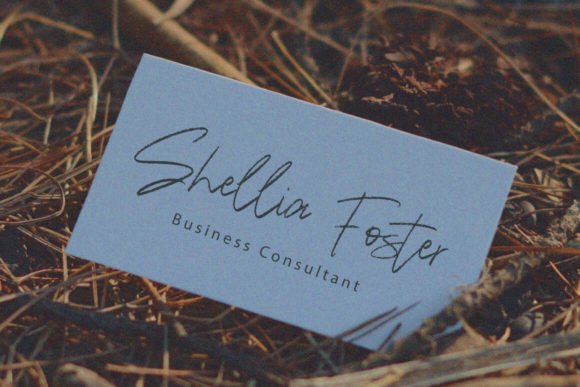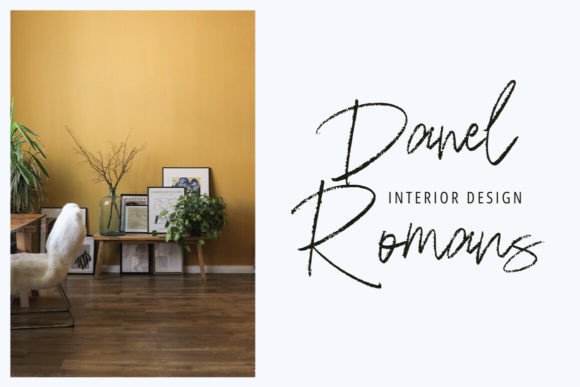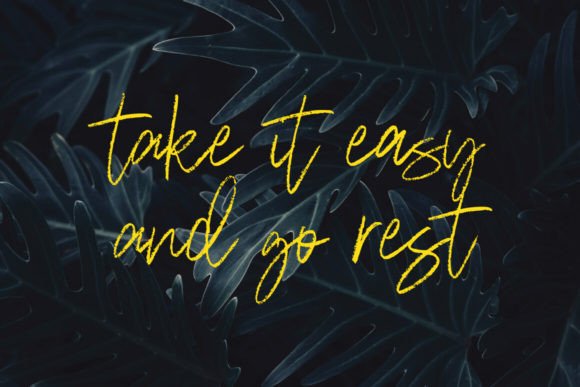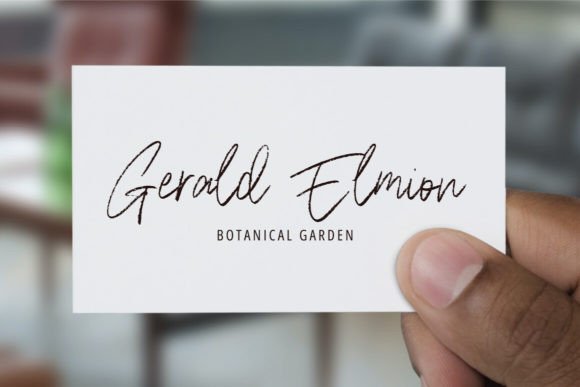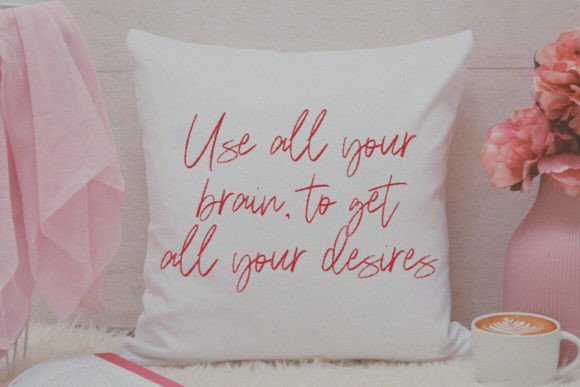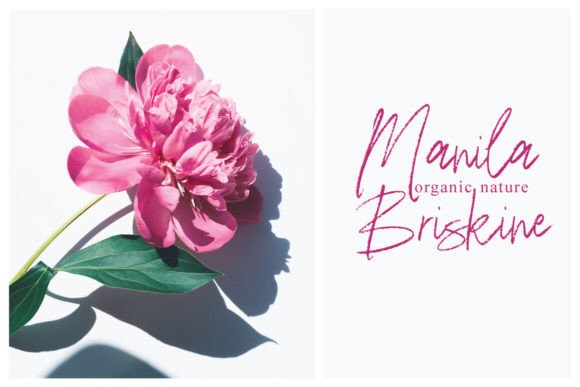
Introduction to Hekian Font
Have you ever been stuck on a creative project, searching for the perfect font to bring your vision to life? I’m sure many designers can relate to that feeling. As I was working on a recent branding project, I stumbled upon the Hekian Font, and it was love at first sight. The elegant, handwritten style of this font immediately caught my attention, and I knew I had to learn more about it.
The Hekian Font is a high-quality design resource that offers a unique blend of sophistication and playfulness. Its decorative characters and dancing baseline make it perfect for a wide range of creative projects, from greeting cards to branding materials. With its transparent background, designers can easily customize it to fit their needs, making it a valuable addition to any design toolkit.
Key Features of Hekian Font
- High-quality design resource suitable for creative projects, including logos, posters, and digital art.
- Comes in 5 font styles, each with its unique characteristics, making it a versatile design resource for various creative projects.
Honest Review: Hekian Font
I recently had the chance to work with the Hekian Font in a creative project, and I must say it was a great addition to my design resource. The high quality of the font truly stood out, making it a perfect choice for my design needs.
- ✨ The font’s transparent background makes it easy to customize and integrate with other design elements.
- ✨ The Hekian Font is highly versatile and can be used in a variety of creative projects, from digital designs to print materials.
However, I did encounter a few limitations while working with the Hekian Font. For instance:
- ⚠️ The font may not be suitable for all types of projects, particularly those requiring a more classic or traditional look.
- ⚠️ Some users may find the font’s unconventional style to be a bit jarring or difficult to read.
Overall, I’m impressed with the Hekian Font and would definitely consider using it in future projects. Its high quality, versatility, and free download make it a valuable resource for designers. With a little creativity, the Hekian Font can be a great addition to any design project.
Hekian Font
Tips for Getting the Most Out of Hekian Font
To get the most out of the Hekian Font, use it on a transparent background to create a clean and modern look. Experiment with different font sizes and styles to add depth to your design.
The Hekian Font is perfect for creating social media graphics, blog posts, and marketing materials. Its high-quality design makes it a great resource for any creative project.